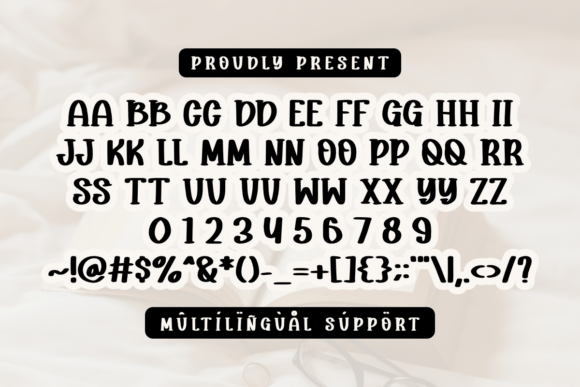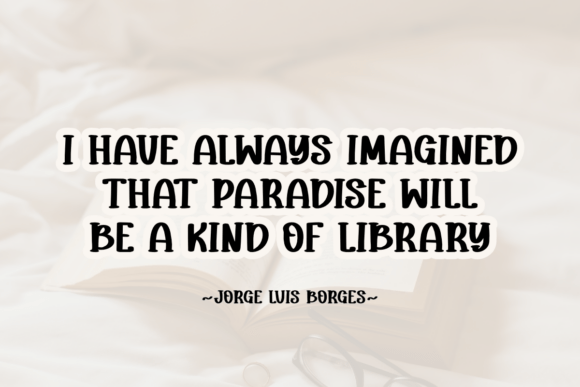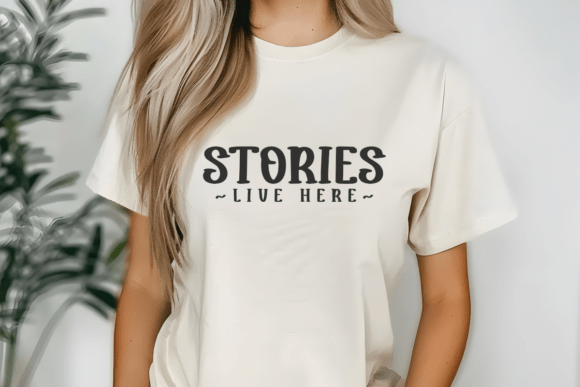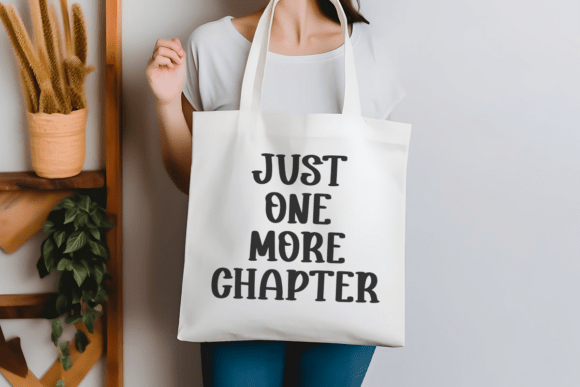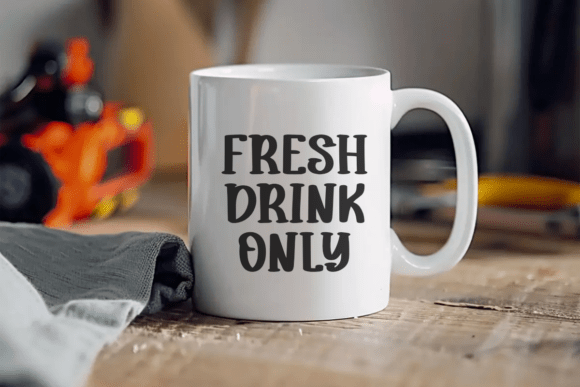
Introducing Bookish Font: The Perfect Choice for Designers and Crafters
Are you a designer or crafter looking for a unique and versatile font to elevate your creative projects? Look no further than Bookish Font, a cute and minimalist slab serif font that’s perfect for a wide range of applications. In this article, we’ll explore the features and benefits of Bookish Font, and show you how to use it to create spectacular and interesting designs.
What is Bookish Font?
Bookish Font is a modern slab serif font that’s designed to be both stylish and readable. Its clean lines, simple shapes, and adorable aesthetic make it an excellent choice for designers and crafters who want to add a touch of personality to their work. Whether you’re creating greeting cards, wedding invitations, gift labels, or other types of designs, Bookish Font is the perfect choice.
Key Features of Bookish Font
So, what makes Bookish Font so special? Here are just a few of its key features:
- Cute and minimalist design: Bookish Font has a charming, understated aesthetic that’s perfect for designers and crafters who want to create elegant and sophisticated designs.
- Slab serif style: The font’s slab serif style gives it a sturdy, dependable feel that’s perfect for body text and headlines.
- Highly versatile: Bookish Font can be used for a wide range of projects, from greeting cards and wedding invitations to gift labels, mugs, t-shirts, and more.
- Easy to read: Despite its stylish design, Bookish Font is highly readable, even at small sizes.
Use Cases for Bookish Font
So, what types of projects can you use Bookish Font for? Here are just a few ideas to get you started:
- Greeting cards: Create beautiful, heartfelt greeting cards for birthdays, holidays, and other special occasions.
- Wedding invitations: Use Bookish Font to create stunning wedding invitations that set the tone for a memorable and elegant wedding.
- Gift labels: Add a personal touch to your gifts with custom labels featuring Bookish Font.
- Mugs and t-shirts: Create eye-catching designs for mugs and t-shirts that feature Bookish Font.
- Quotes and posters: Use Bookish Font to create inspiring quotes and posters that feature your favorite sayings and phrases.
Tips for Using Bookish Font
Here are a few tips for getting the most out of Bookish Font:
- Experiment with different sizes: Bookish Font looks great at a wide range of sizes, from small body text to large headlines.
- Pair it with other fonts: Try pairing Bookish Font with other fonts to create interesting and dynamic designs.
- Use it for body text: Bookish Font is highly readable, making it an excellent choice for body text.
- Add embellishments: Consider adding embellishments, such as illustrations or graphics, to give your designs an extra boost.
In conclusion, Bookish Font is a versatile and stylish font that’s perfect for designers and crafters who want to create beautiful and eye-catching designs. With its cute and minimalist design, slab serif style, and high readability, Bookish Font is an excellent choice for a wide range of projects. Whether you’re creating greeting cards, wedding invitations, gift labels, or other types of designs, Bookish Font is sure to become a favorite in your font collection.